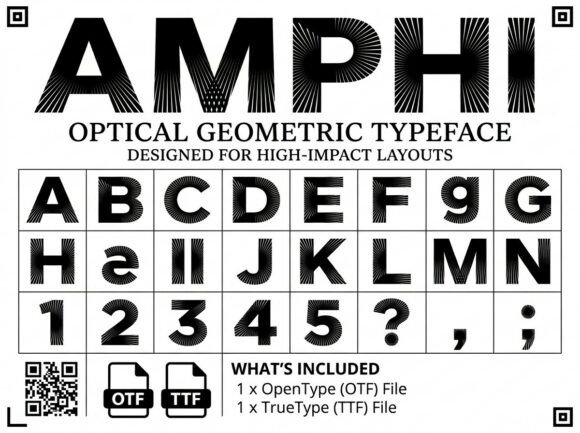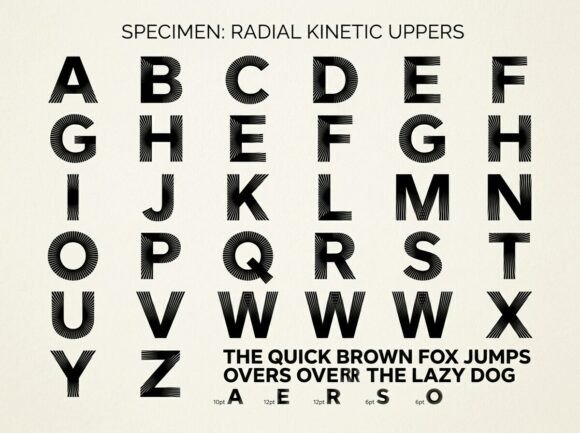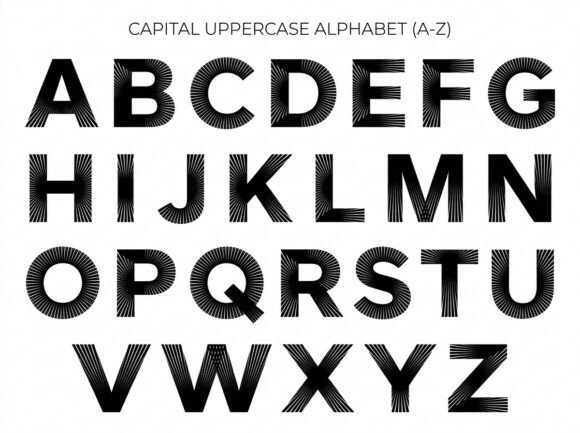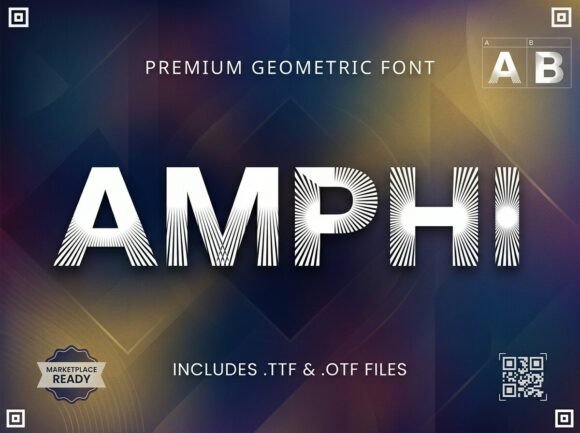
Introducing Amphi Font: Elevate Your Creative Projects with a Decorative Display Font
Are you tired of using the same old fonts for your creative projects? Do you want to make a statement and break away from the ordinary? Look no further than Amphi Font, a decorative display font designed to be the centerpiece of any layout. With its distinct artistic elements and strong character, Amphi Font is perfect for creators who want to add a touch of personality to their work.
What Makes Amphi Font Special?
Amphi Font is a unique and stylish font that is sure to elevate your creative projects. Its bold and eye-catching design makes it perfect for use in a variety of applications, from bold headlines to creative branding and packaging. The font’s strong character and artistic elements give it a high-end, professional aesthetic that is sure to impress.
One of the key features that sets Amphi Font apart is its decorative initials. The font is designed to be used for display purposes, making it perfect for logos, titles, and other creative projects where you want to make a statement. The font’s all-caps design ensures that your text stands out and grabs attention.
It’s worth noting that Amphi Font is an all-caps display typeface, which means it does not contain lowercase letters. This is by design, and it makes the font a powerful tool for logos, titles, and decorative initials. If you’re looking for a font to use for body text or other applications where you’ll need to type in lowercase, Amphi Font may not be the best choice. However, if you want a font that will make a statement and add a touch of personality to your creative projects, Amphi Font is an excellent option.
Using Amphi Font in Your Creative Projects
Amphi Font is a versatile font that can be used in a variety of creative projects. Here are a few ideas to get you started:
• Logos and Branding: Use Amphi Font to create a bold and eye-catching logo that will help your brand stand out.
• Headlines and Titles: Add a touch of personality to your headlines and titles with Amphi Font’s decorative initials and strong character.
• Packaging: Use Amphi Font to add a high-end, professional aesthetic to your packaging designs.
• Social Media Graphics: Make your social media graphics stand out with Amphi Font’s bold and eye-catching design.
If you’re looking for a font that will elevate your creative projects and add a touch of personality, Amphi Font is an excellent choice. With its distinct artistic elements and strong character, Amphi Font is perfect for creators who want to break away from the ordinary. Whether you’re looking to create a bold headline, design a logo, or add a high-end aesthetic to your packaging, Amphi Font is a versatile and stylish font that is sure to impress.